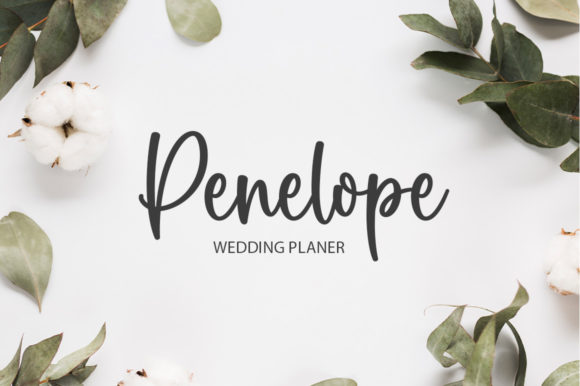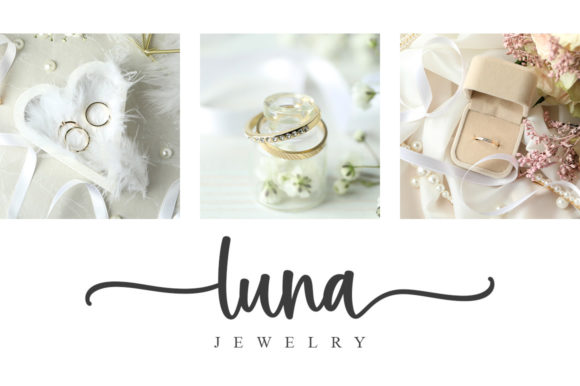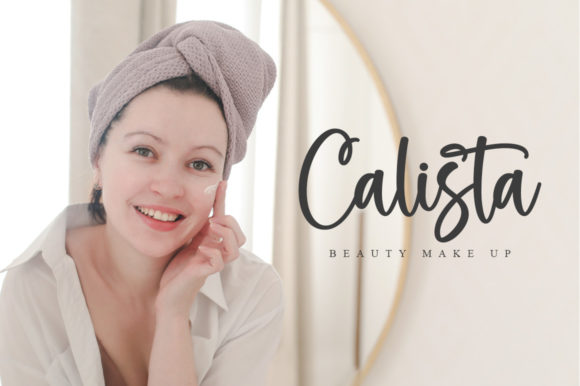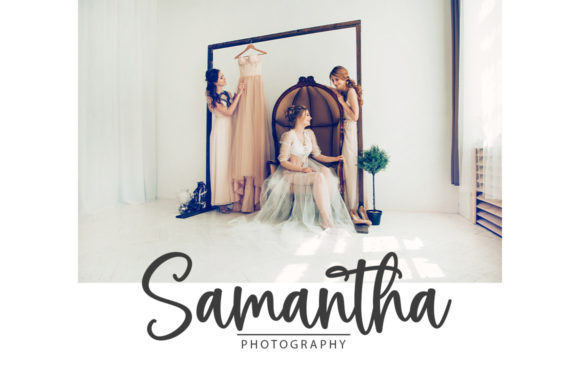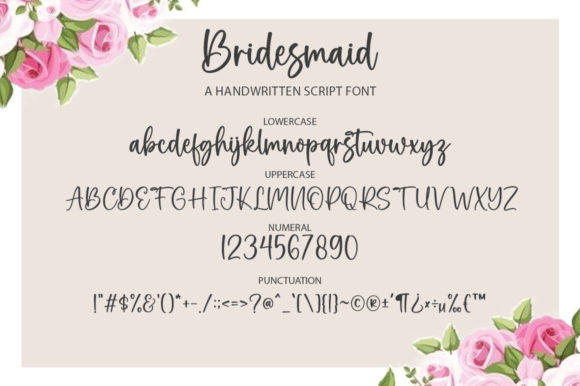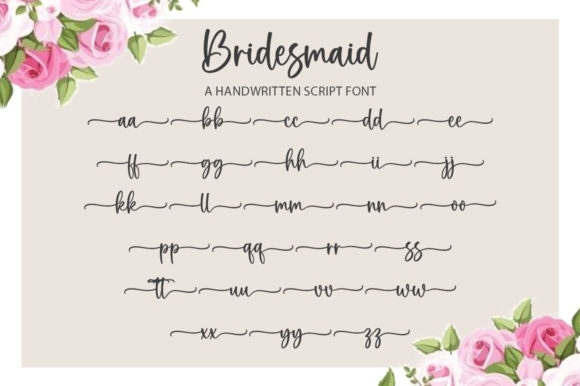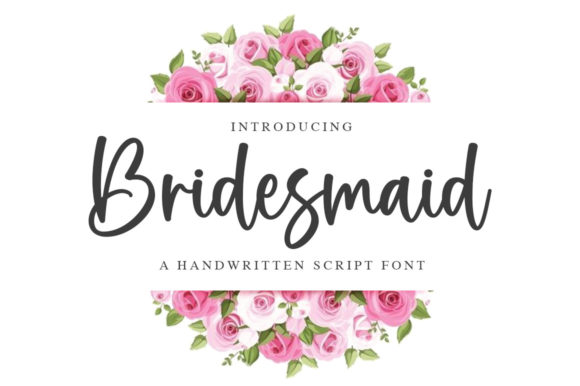
Introducing Bridesmaid Font: The Epitome of Elegance and Sophistication
In the world of typography, few fonts manage to convey the essence of elegance and sophistication as effortlessly as the Bridesmaid Font. This delicate and refined script font has been turning heads with its stylish alternates and ligatures, making it the perfect match for any project that demands a touch of class. Whether you’re a designer looking for the perfect font to elevate your client’s branding or a crafter seeking a beautiful font for your handmade creations, Bridesmaid Font is sure to impress.
The Beauty of Bridesmaid Font
Bridesmaid Font is a script font that exudes refinement and poise. Its delicate strokes and curves are meticulously crafted to create a sense of fluidity and movement, making it perfect for a wide range of applications, from wedding invitations and stationery to branding and packaging. The font’s elegant appearance is further enhanced by its stylish alternates and ligatures, which add a touch of sophistication and whimsy to any text.
One of the standout features of Bridesmaid Font is its PUA (Private Use Area) encoding. This means that you can access all glyphs and swashes with ease, giving you unparalleled creative control over your typography. With PUA encoding, you can effortlessly swap out characters and ligatures to create a unique look that perfectly complements your design. Whether you’re a seasoned designer or a crafting novice, PUA encoding makes it easy to get the most out of Bridesmaid Font.
Bridesmaid Font is a versatile font that is perfect for both designers and crafters. Designers will love the font’s flexibility and range, making it suitable for a wide range of projects, from branding and advertising to packaging and editorial design. Crafters, on the other hand, will appreciate the font’s beauty and elegance, making it perfect for handmade creations such as wedding invitations, party decorations, and personalized gifts.
Use Cases for Bridesmaid Font
So, what can you use Bridesmaid Font for? The possibilities are endless! Here are a few ideas to get you started:
- Wedding invitations and stationery: Bridesmaid Font is perfect for creating beautiful and elegant wedding invitations, save-the-dates, and thank-you cards.
- Branding and packaging: Use Bridesmaid Font to add a touch of sophistication and elegance to your brand’s packaging and marketing materials.
- Crafting and DIY projects: Bridesmaid Font is perfect for handmade creations such as party decorations, personalized gifts, and scrapbooking.
- Editorial design: Use Bridesmaid Font to add a touch of elegance and refinement to your editorial designs, such as magazines, blogs, and books.
Why Choose Bridesmaid Font?
So, why choose Bridesmaid Font over other fonts? Here are just a few reasons:
- Elegance and sophistication: Bridesmaid Font is a truly elegant and sophisticated font that will elevate any project.
- Versatility: Bridesmaid Font is a versatile font that can be used for a wide range of projects and applications.
- Easy to use: With PUA encoding, Bridesmaid Font is easy to use and customize, even for those with limited design experience.
- Unique and stylish: Bridesmaid Font’s stylish alternates and ligatures make it a unique and stylish addition to any project.
In conclusion, Bridesmaid Font is a beautiful and elegant script font that is perfect for designers and crafters looking to add a touch of sophistication and refinement to their projects. With its stylish alternates and ligatures, PUA encoding, and versatility, Bridesmaid Font is sure to become a go-to font for anyone looking to create beautiful and elegant typography. So why wait? Download Bridesmaid Font today and start creating stunning designs that will leave a lasting impression!